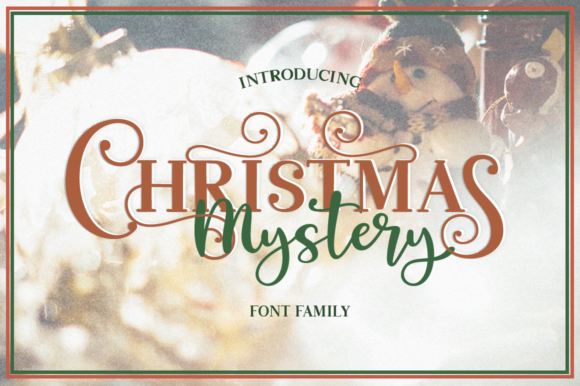
The Magic of the Christmas Season in Typography
It’s the most wonderful time of the year, and as designers, we’re always looking for ways to capture the essence of the holiday season in our work. There’s something special about creating a festive design that transports people to a world of twinkling lights, cozy warmth, and joyous cheer. For me, it all starts with the perfect font – one that embodies the magic and wonder of Christmas. And that’s where the Christmas Mystery Family Font comes in.
This beautiful font family is more than just a collection of letters; it’s a set of styles that fit together seamlessly, creating a cohesive and elegant look that’s perfect for any holiday design project. Whether you’re creating a card, a poster, or a website, the Christmas Mystery Family Font will add a touch of winter wonder to your work.
Key Features of Christmas Mystery Family Font
- Font Family: A collection of 6 unique font styles, each with its own distinct character, to create a cohesive and festive atmosphere.
- Unique Characteristics: Each font style features intricate details, such as ornaments, garlands, and other festive elements, to add a touch of whimsy and charm.
Designer Review: Christmas Mystery Family Font
Overall, I’m really impressed with the Christmas Mystery Family Font. ✨ The font has a unique, playful feel that’s perfect for holiday projects, especially those that need a bit of whimsy and charm. The designer has done a great job of creating a cohesive family of fonts that work well together.
- Unique, hand-drawn feel that adds a touch of personality to designs ✨
- Well-designed family of fonts that work well together for a cohesive look
- Great for holiday projects, especially those that need a bit of whimsy and charm
- ⚠️ Limited character set, may not be suitable for projects that require a lot of special characters or foreign language support
- ⚠️ May not be the best choice for body text, as it can be a bit difficult to read at smaller sizes
- ⚠️ Limited font weights and styles, may not offer enough options for designers who like to customize their fonts
Overall, I think the Christmas Mystery Family Font is a great choice for designers who are looking for a unique and playful font for their holiday projects. While it may have some limitations, I think the benefits far outweigh the drawbacks. I’d definitely recommend it to anyone who’s looking for a fun and festive font for their designs.
Getting the Most Out of the Font
To get the most out of the Christmas Mystery Family Font, use it in conjunction with other festive elements, such as holly or snowflakes.
Experiment with different font sizes and styles to create a unique and eye-catching design.
The Christmas Mystery Family Font is perfect for:
Creating holiday invitations and cards.
Designing festive social media graphics.
Adding a touch of holiday cheer to your website or blog.